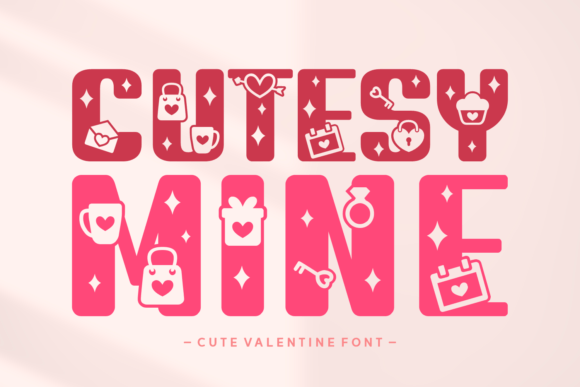
Introducing Cutesy Mine Font, the ultimate font for card game enthusiasts! Created with love by the talented Rizkky from 7NTypes, this decorative font is guaranteed to captivate your heart and bring a touch of cuteness to your designs.
With Cutesy Mine, expressing your affection has never been more delightful. Imagine the joy on your crush's face as they receive a Valentine's Day card adorned with this incredibly cute font. Its playful and charming style will instantly melt their heart and leave a lasting impression.
Whether you're designing for children or adults, Cutesy Mine is the perfect choice for adding a dash of whimsy to your creations. Craft adorable stickers that will make anyone smile, create eye-catching posters that will brighten up any space, or design captivating cards that will capture the essence of love.
Every stroke of Cutesy Mine exudes an irresistible charm that is hard to resist. Its unique and expressive characters will add a touch of magic to any project. From its enchanting lowercase letters to its quirky uppercase variations, this font is full of surprises that will make your designs stand out from the crowd.
But Cutesy Mine is not just about its adorable appearance. It is also a font that understands the power of emotions. Each letter is carefully crafted to evoke feelings of warmth, joy, and affection. It's like a love letter in the form of a font, ready to convey your deepest emotions through its creative curves and delightful swirls.
With Cutesy Mine, your imagination is the limit. Let your creativity run wild as you explore the endless possibilities this font has to offer. Whether you're designing heartfelt greeting cards, creating enchanting invitations, or crafting captivating social media posts, Cutesy Mine will add that extra touch of sweetness that will make your designs truly memorable.
So, why settle for ordinary fonts when you can choose Cutesy Mine? Declare your love in style and make a lasting impression with this captivating decorative font. Spread joy, create magical moments, and let your designs speak volumes with every enchanting letter.